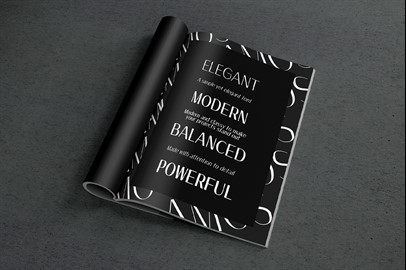
AMOS Typeface: A Modern Sans Serif Font
A simple yet elegant font.
Amos
is a modern typeface with a style that makes it perfect for use in your design projects.